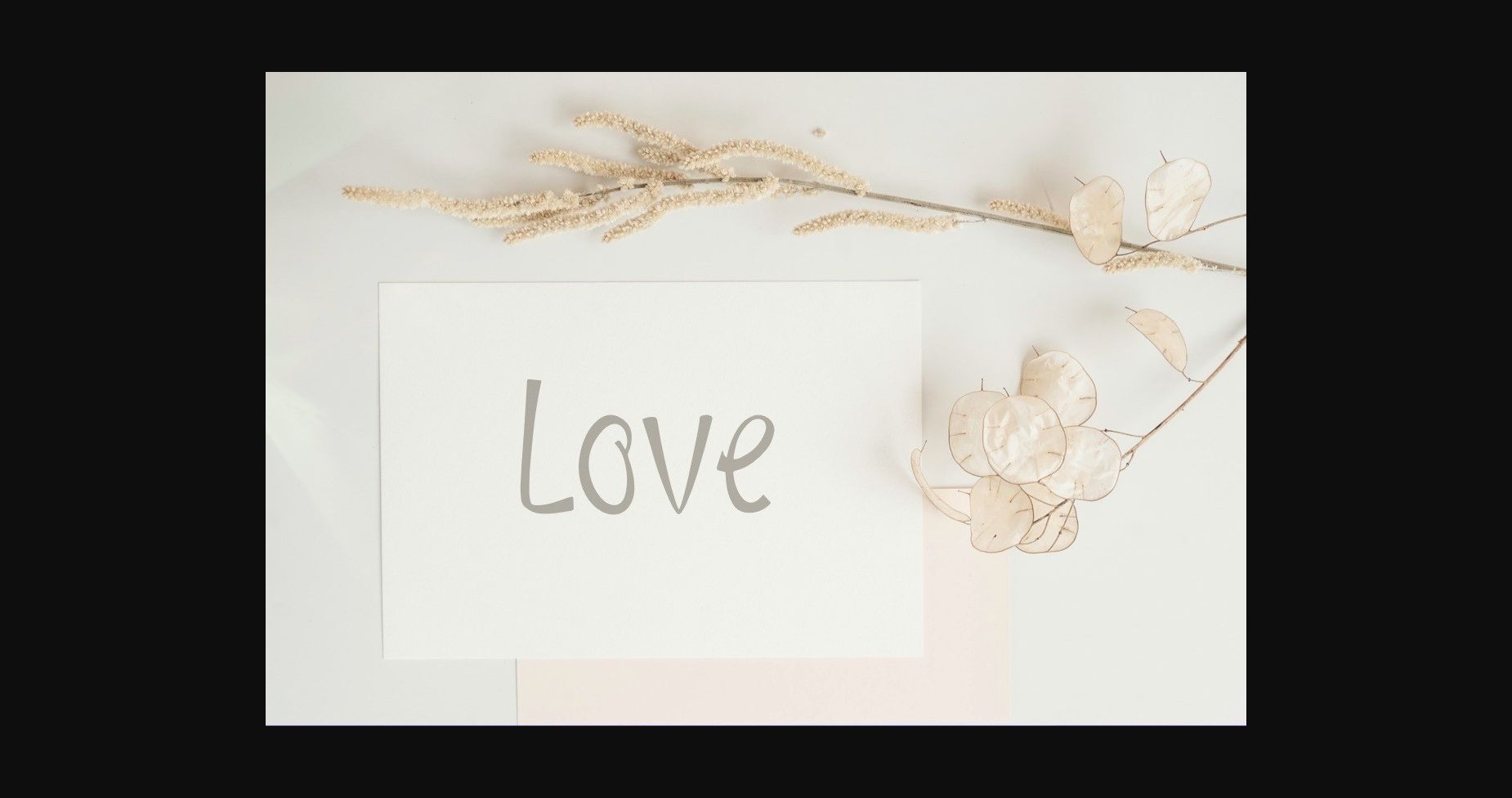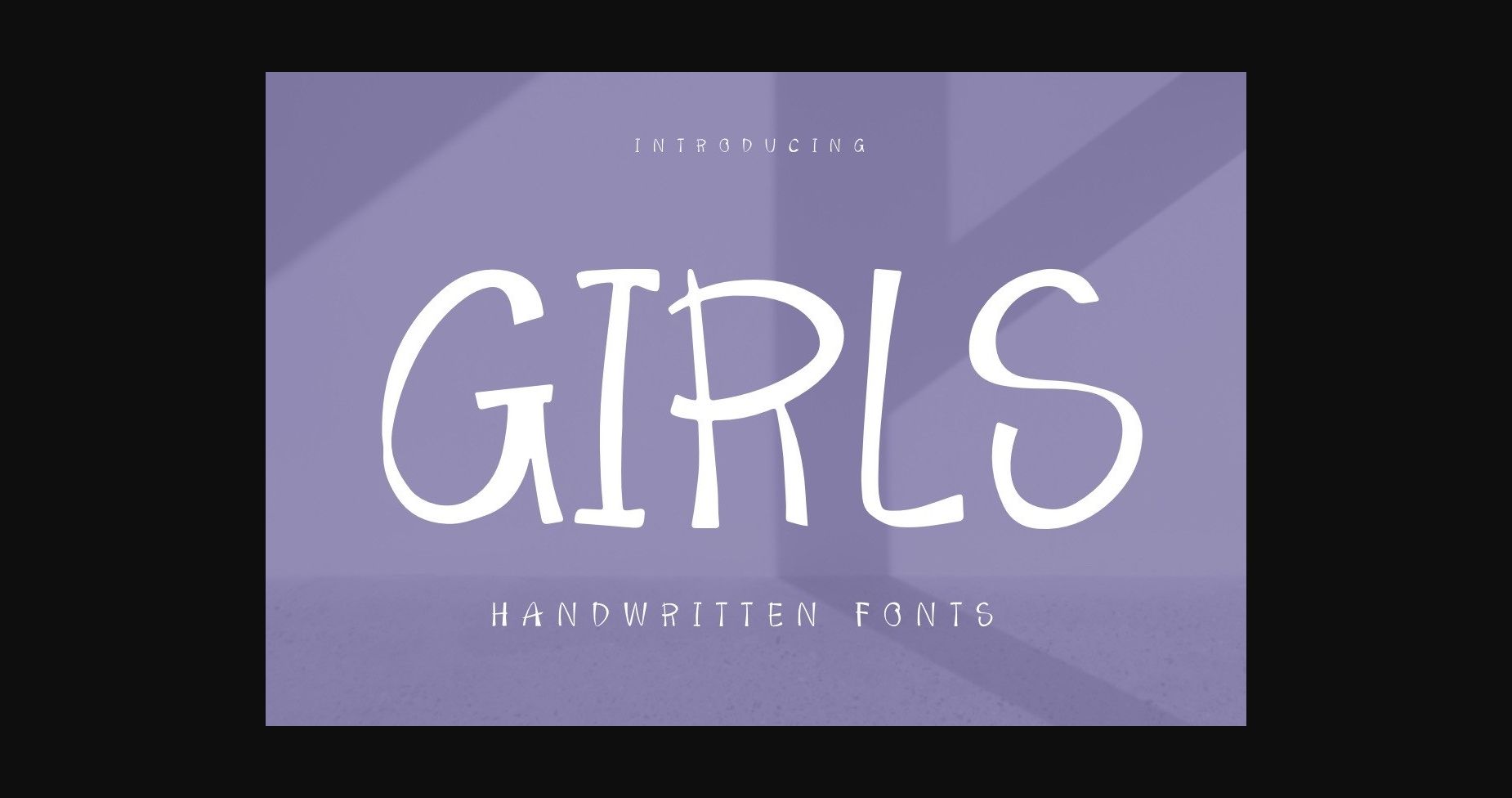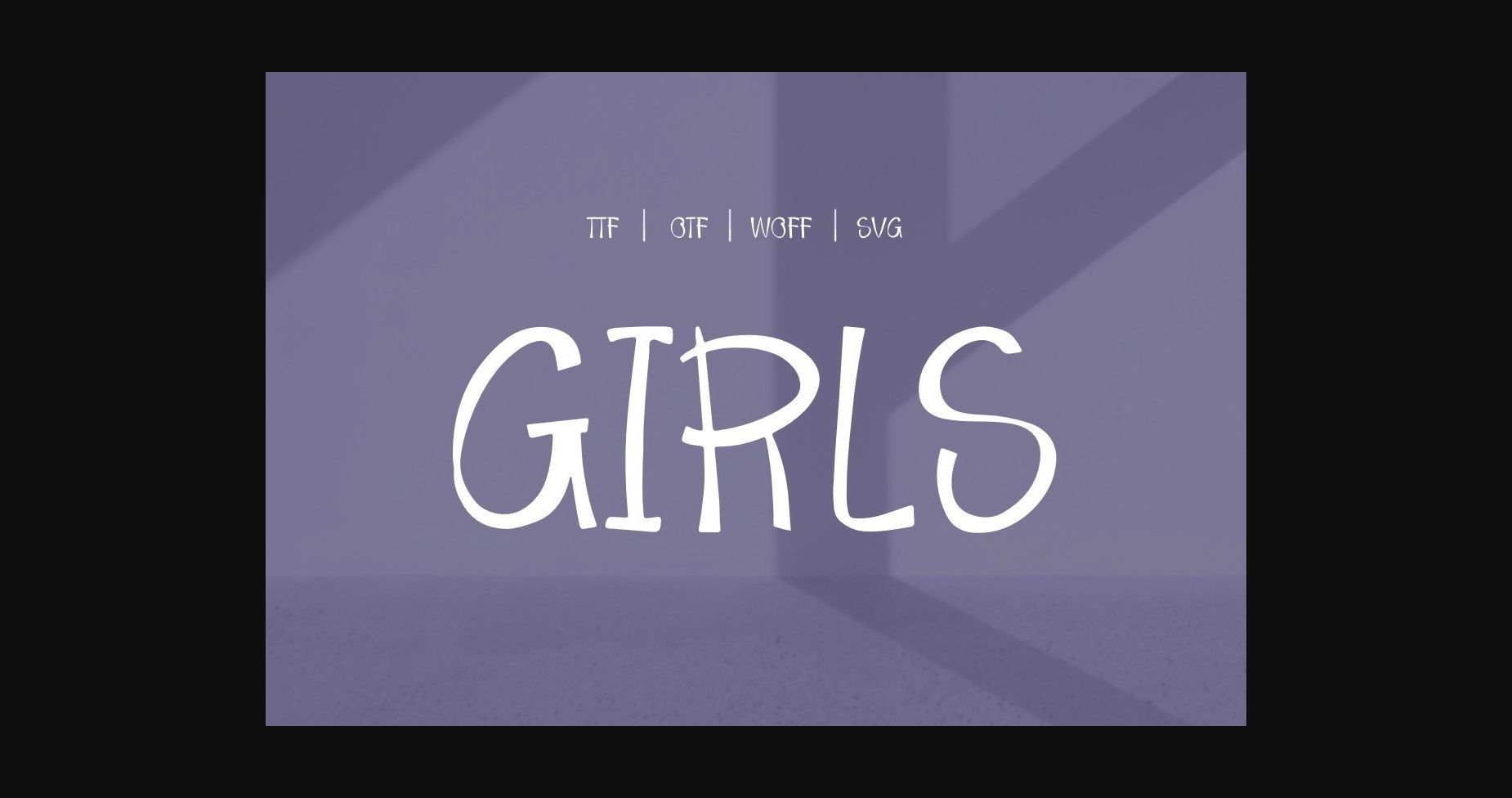
About Girls Font
GIRLS is a vintage and stylish script font, designed to add a touch of elegance to any project. With its graceful and fluid letterforms, this font exudes a sense of beauty and refinement that is perfect for branding, invitations, and editorial design